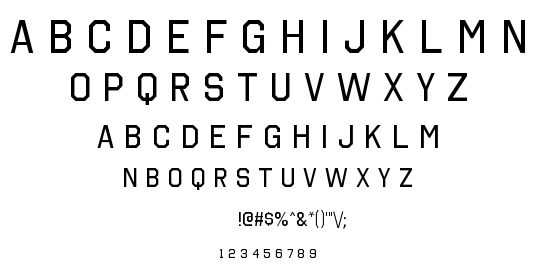
Octin College Free
Octin College is a tough headliner available in 7 weights: light, book, regular, semi-bold, heavy & black. Octin College isn’t just for school; it’s also great for prison, sports, construction, police or military themes. Check out the rest of the Octin families: Octin Sports, Octin Prison, Octin Stencil, Octin Vintage & Octin Spraypaint